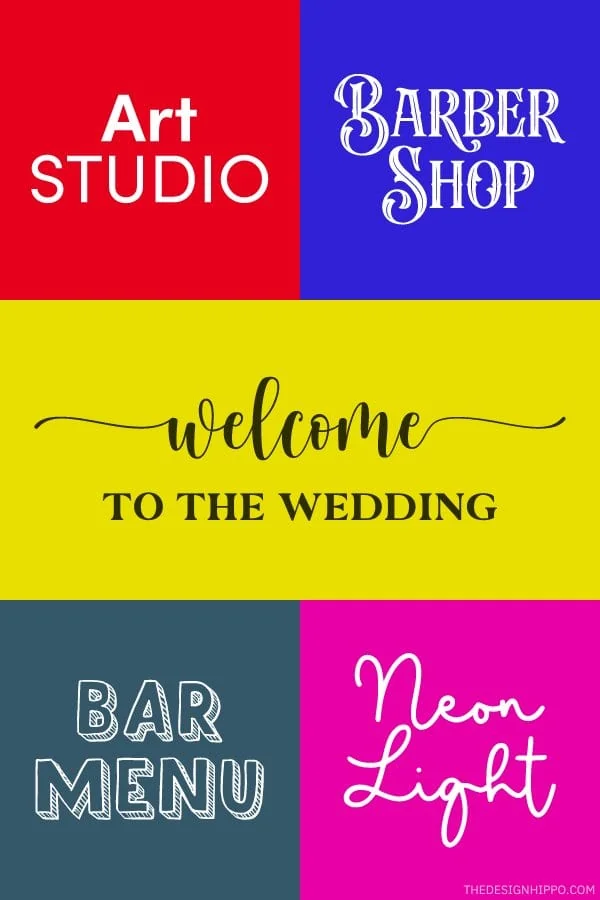
16 Best Fonts for Signs and Banners (+Top Free Picks)
Signs play a crucial role in conveying information and leaving a lasting impression. This is true whether it’s a business trying to attract customers or a wedding aiming to set the right mood. The secret to a well-crafted sign or banner lies in choosing the right fontโ€”readable, suitable for the material, and aligned with the design’s theme.
This guide will help you pick the best sign font. From tips for choosing a sign font to the most popular picks, we’ll explore everything here.
Assorted 'best fonts for signs' collection suitable for different types of signages.
How to Choose the Best Sign Lettering Font
Before we dive into our top recommendations, let’s review the top three things to consider when choosing a font for your sign.
1. Think about size and distance
Imagine how big your sign is and how far away people will be from it. For example, a font that looks great on a storefront sign may look completely different on a giant billboard. Therefore, readability is a key consideration.
2. Consider the type of sign material
How are you making your sign, and what material is it made out of? Is it a fabric banner? A wooden or metal sign? Or will it be printed on paper?
Signage material plays a huge role in font selection. A font suited for neon signs may not be suitable for metal signs.
3. Evaluate project theme and purpose
You should also consider your design’s theme and purpose. If you’re designing a sign for a rustic wedding reception, you would probably use a different font than you would if you were designing a business sign for a dentist.
So, make sure to pick a font that matches the overall theme of your project.
Our Top Picks
Best Fonts for Signs
Based on our experience as graphic designers and crafters, we have curated the fonts below. These fonts are also favorites for professional signmakers and hobbyists alike.
Each font is categorized according to the project’s purpose and theme. Whether you’re a professional sign maker or simply enjoy creating, we’re confident you’ll love these fonts, too.
1. Hello Honey
Best Font for Wedding Signs
Hello Honey best font for wedding signs
Elegant wedding welcome sign featuring the ‘Hello Honey’ font.
The Hello Honey font is a perfect choice for wedding signs. Itโ€™s a romantic script that is easy to read and fits a wide range of wedding sign designs.
We especially love the elegant beginning and ending swashes. We also adore the looping heart character.
You can use it to connect words, names, and initials. The heart adds a sweet and personal touch. Moreover, itโ€™s the most popular choice for making welcome signs with Cricut.
2. Sofia Pro
Best Font for Business Signs and Banners
Dental office exterior sign with 'Smile Dental' in a clean, contemporary font and a logo forming a heart-shaped tooth.
Modern dental clinic signage featuring a stylized tooth logo with the Sofia Pro sans-serif font.
Sofia Pro, a geometric sans-serif font, is an excellent choice for business signs and banners. The rounded curves and elegant look make it a top choice among design professionals.
Additionally, the font family comes in a variety of weights ranging from ultra-light to black. The bold variations are best for eye-catching yet readable outdoor signs and banners for stores.
3. Neon Light
Best Font for Neon Signs
Neon Light monoline script font
Neon Light. Image Credit: Creative Fabrica
For neon signs, we recommend the font Neon Light. This playful monoline script font comes with cute and bouncy letters.
The Neon Light font is perfect for neon signs because the lowercase letters are connected, smooth, and readable. It is ideal for everything from bedroom name signs to custom wedding signs.
4. Camila Ashton
Best Cricut Font for Signs
Camila Ashton sign font for Cricut
Camila Ashton. Image Credit: Creative Fabrica
Camilla Ashton is a handwritten font duo with a script font and sans-serif font. The script font is perfect to add an elegant touch to your projects. Meanwhile, the casual sans-serif font is ideal for lending a playful vibe.
Both fonts will work for many types of Cricut projects, especially decor. Itโ€™s a top choice for making wood signs for weddings and home decor.
5. Country Kitchen
Best Font for Wood Signs
Custom wooden sign displaying 'The Smiths EST 2022' in the 'Country Kitchen' font, blending rustic charm with modern elegance.
Personalize your space with the ‘Country Kitchen’ font, perfect for custom wood signs.
The result? A sign that not only communicates effectively but also captures the essence of the project, leaving an indelible mark on viewers.